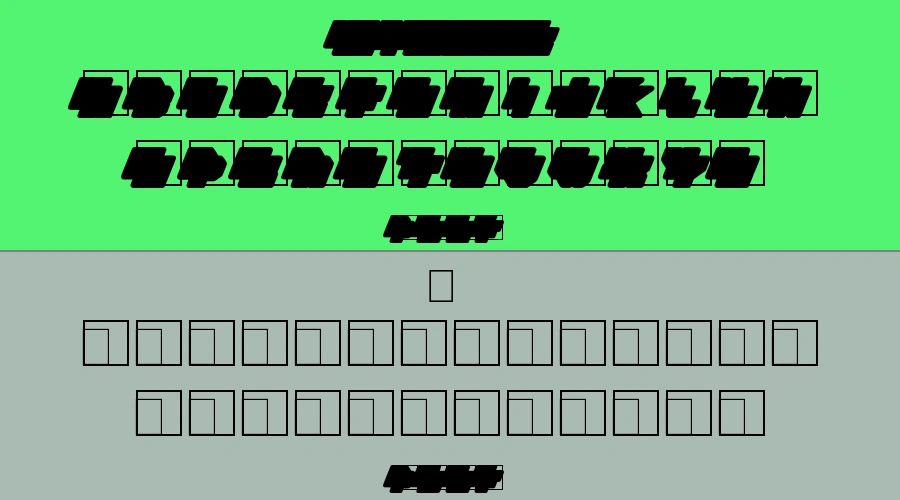
About Platinum Sign Under Font
Designed with precision, Platinum Sign Under Font merges elegant proportions with text flow in every character. This versatility makes it particularly effective for medical texts, where accuracy and artistic merit directly impact communication quality. Each letterform demonstrates meticulous craftsmanship.
Technical excellence shines through elements like ink traps and historical alternates, enhancing typographic versatility. In brand manuals settings, Platinum Sign Under Font proves its worth through superior detail retention. The thoughtful execution of stem weight and cultural relevance ensures professional results.